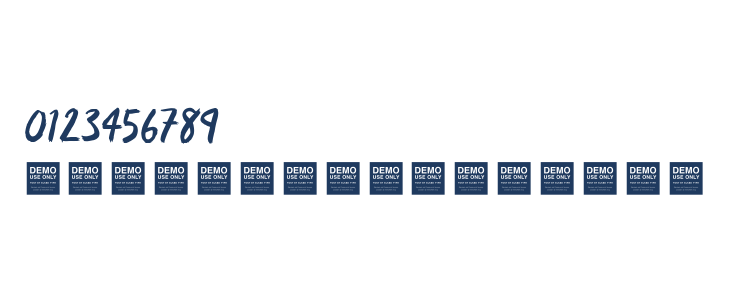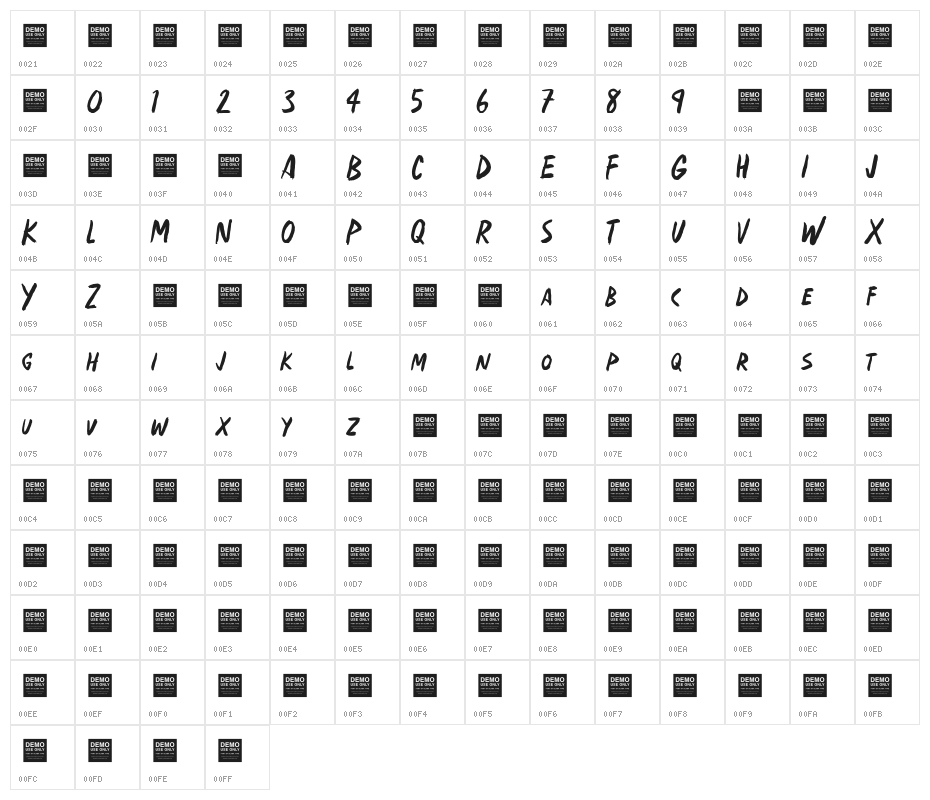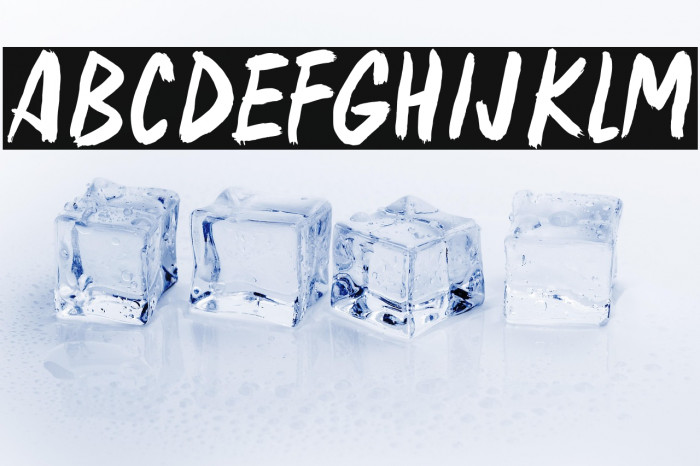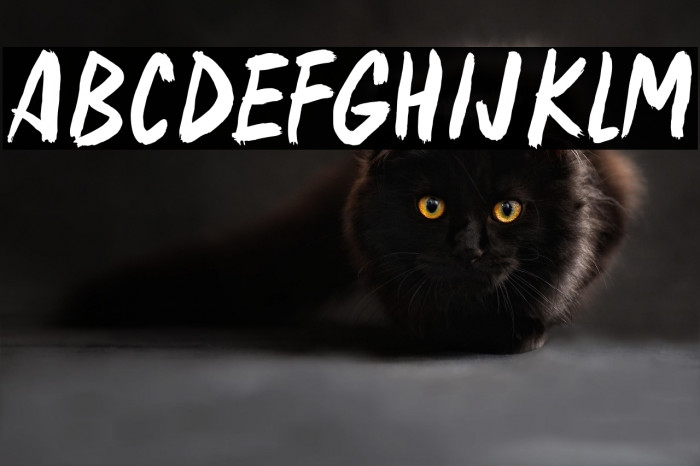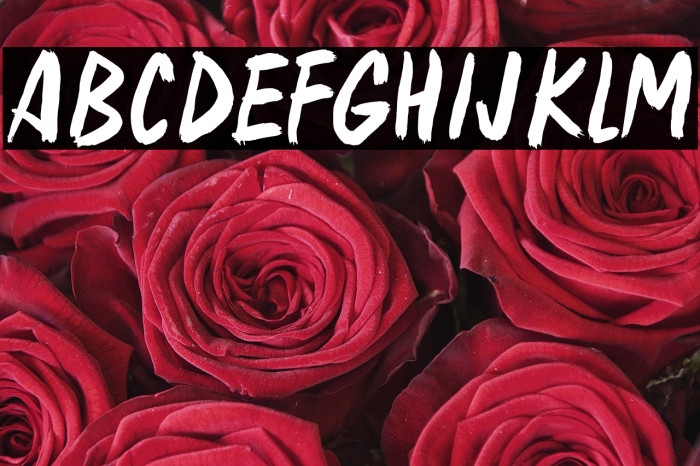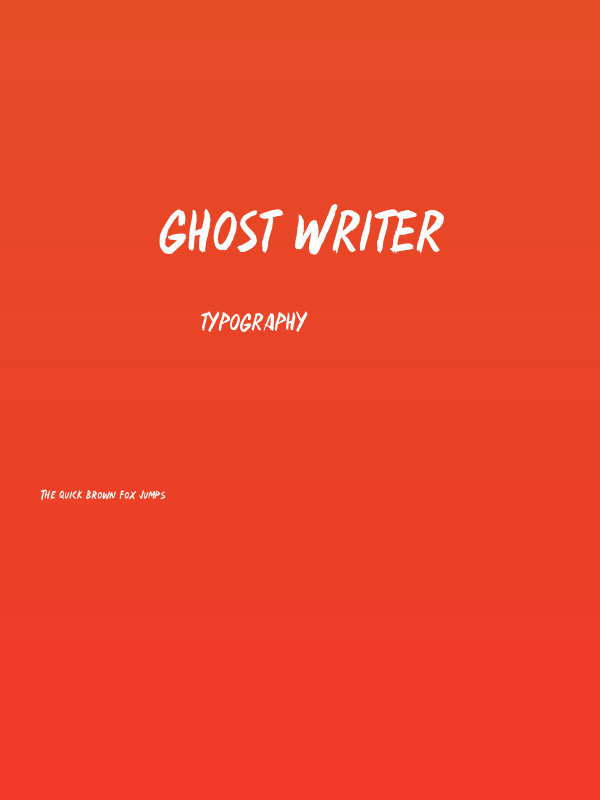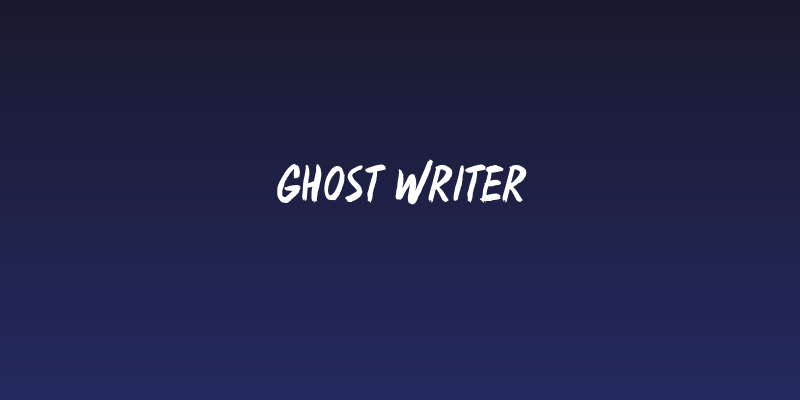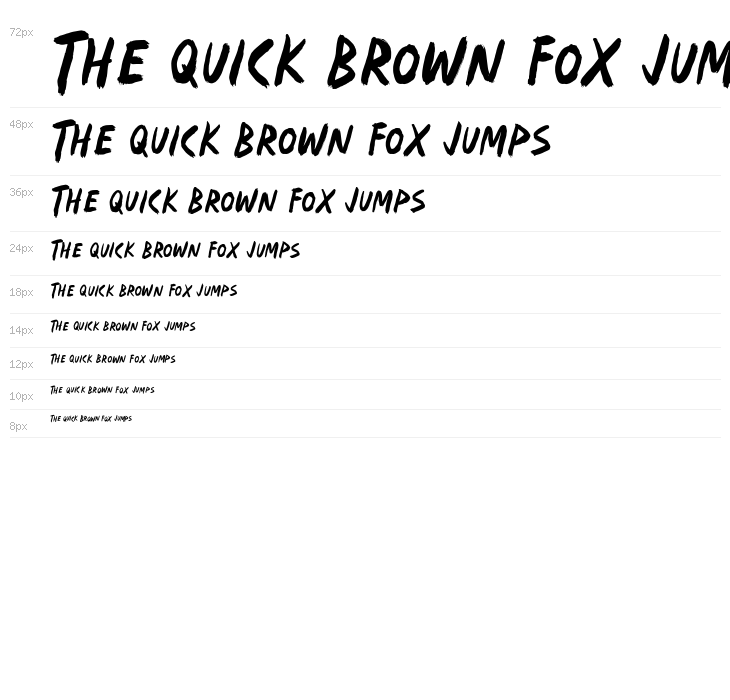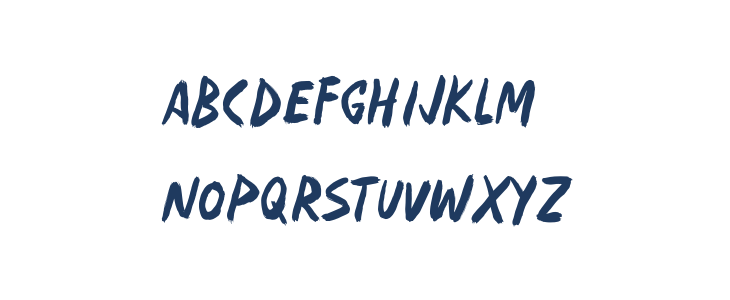
Ghost Writer Font
Ghost Writer Description
This font exhibits a bold and expressive handwritten style, characterized by its dynamic brush strokes and energetic appearance. The letters are slightly slanted, giving a sense of movement and fluidity. The uppercase and lowercase characters maintain a consistent style, with a rough, textured edge that adds to its handcrafted feel. The numerals and special characters follow the same aesthetic, ensuring uniformity across all glyphs. This font is ideal for projects that require a personal touch or an artistic flair, such as invitations, posters, or branding materials.
| Proposed Projects | Ideal for invitations, posters, branding materials, and artistic projects. |